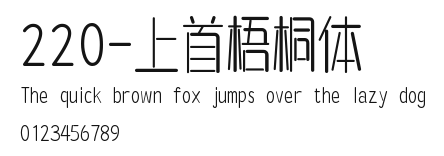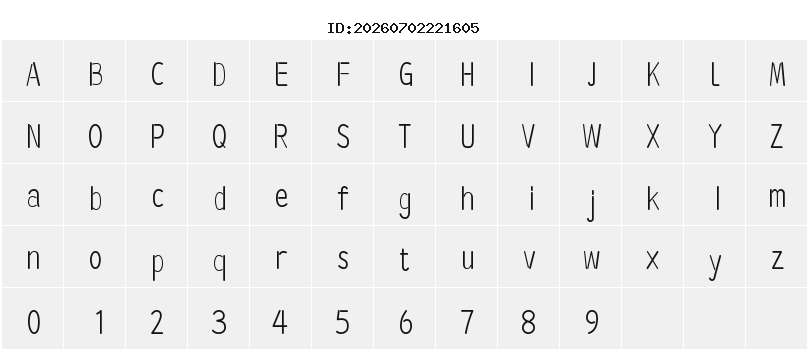
220-上首梧桐体.ttf is a modern, elegant sans-serif font designed for ultimate readability and visual harmony. Perfect for branding, headlines, web design, and print materials.